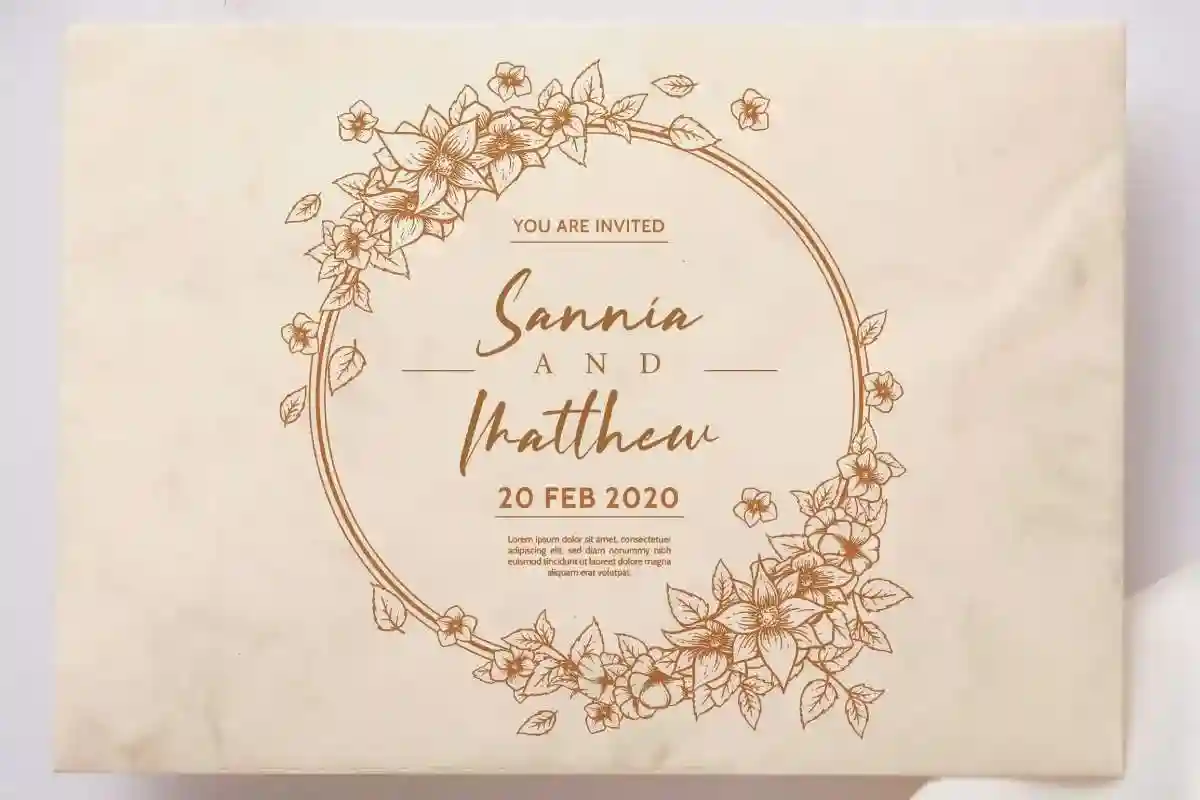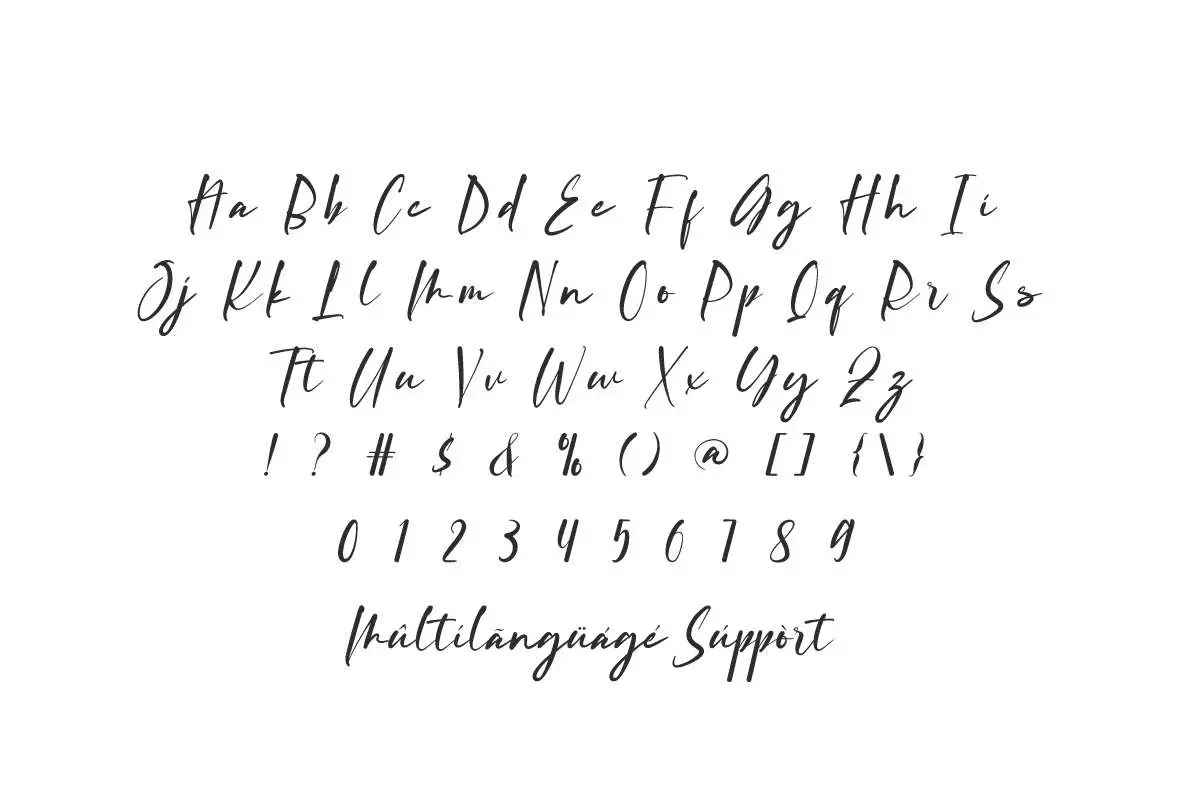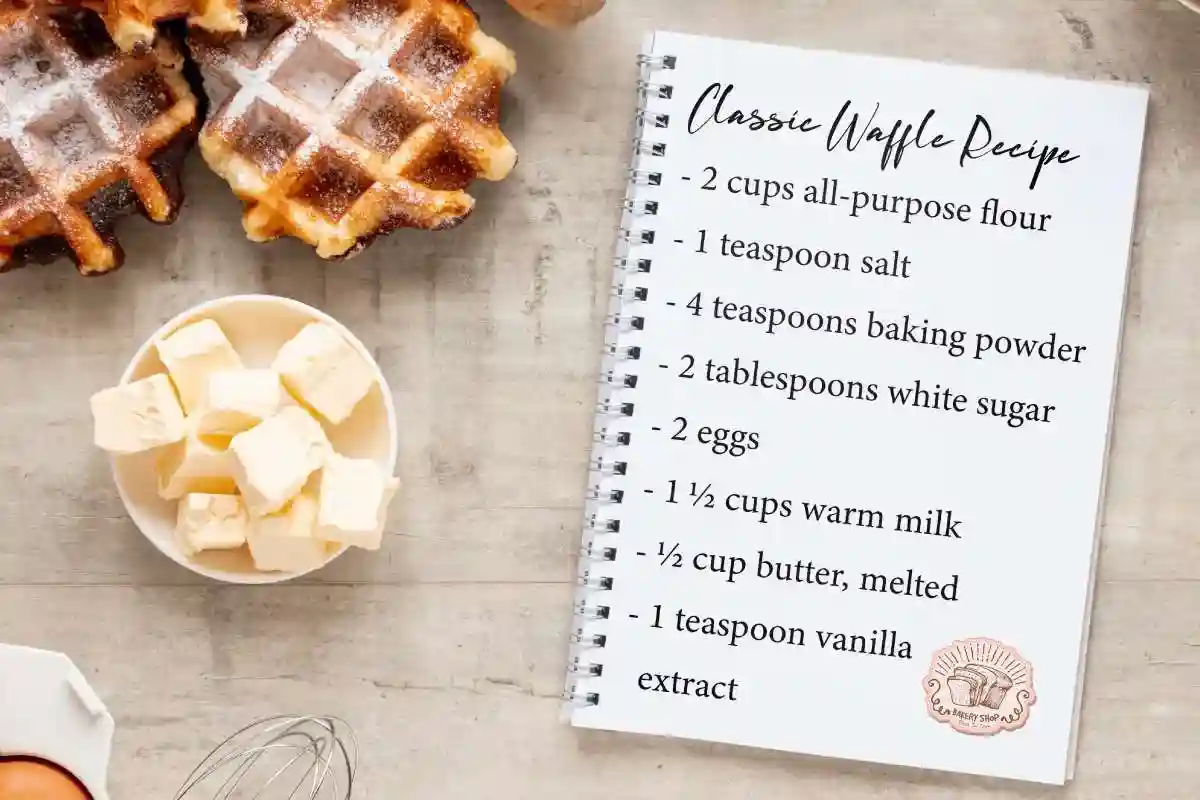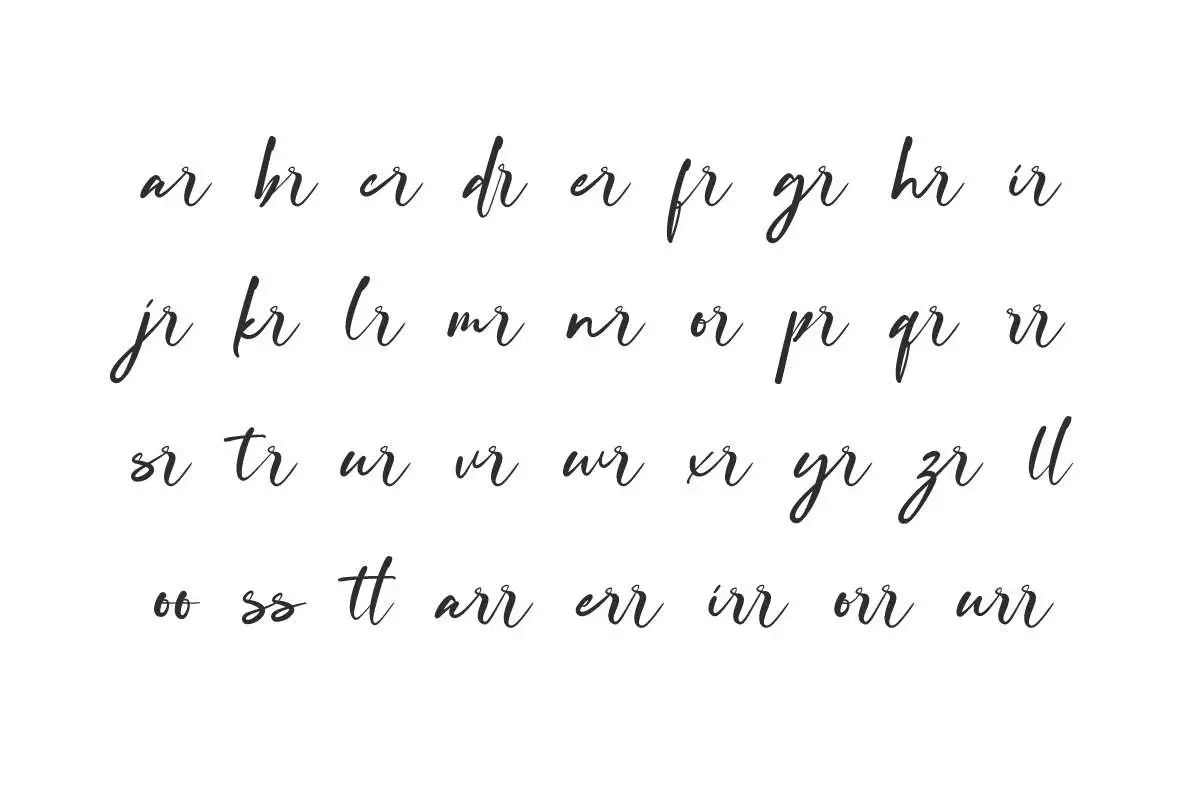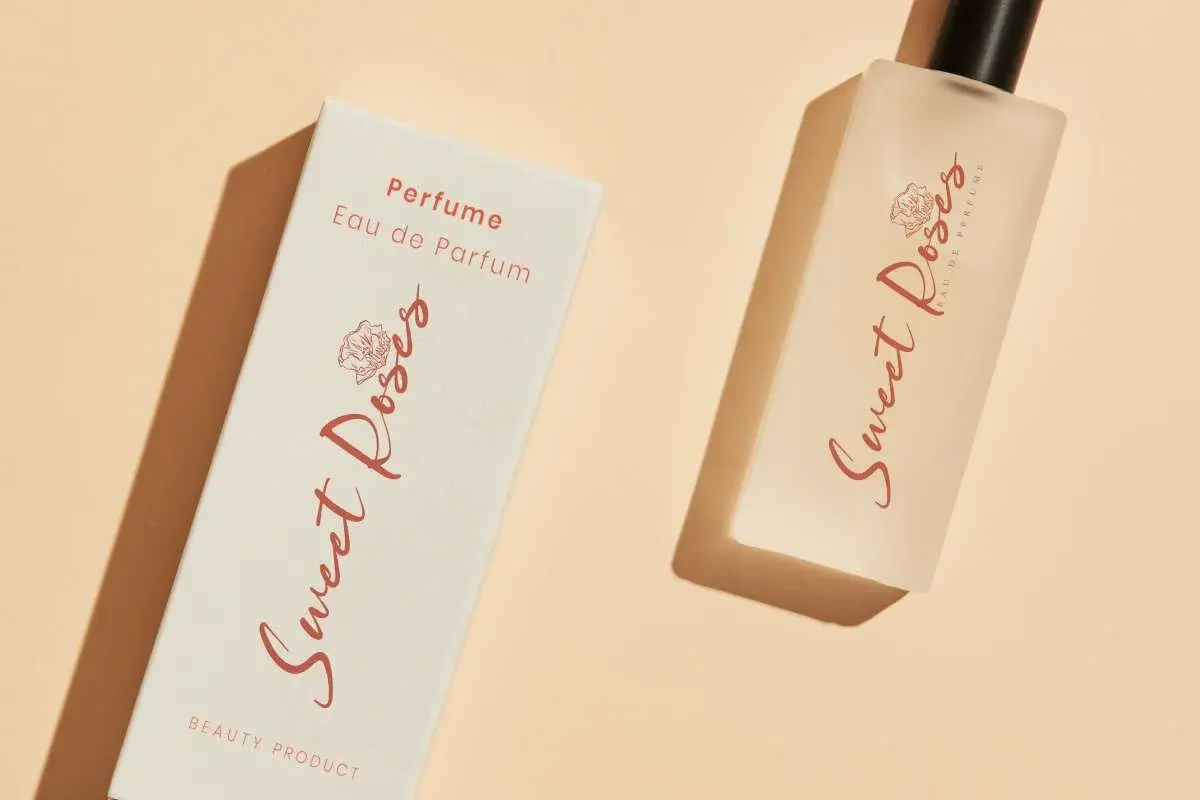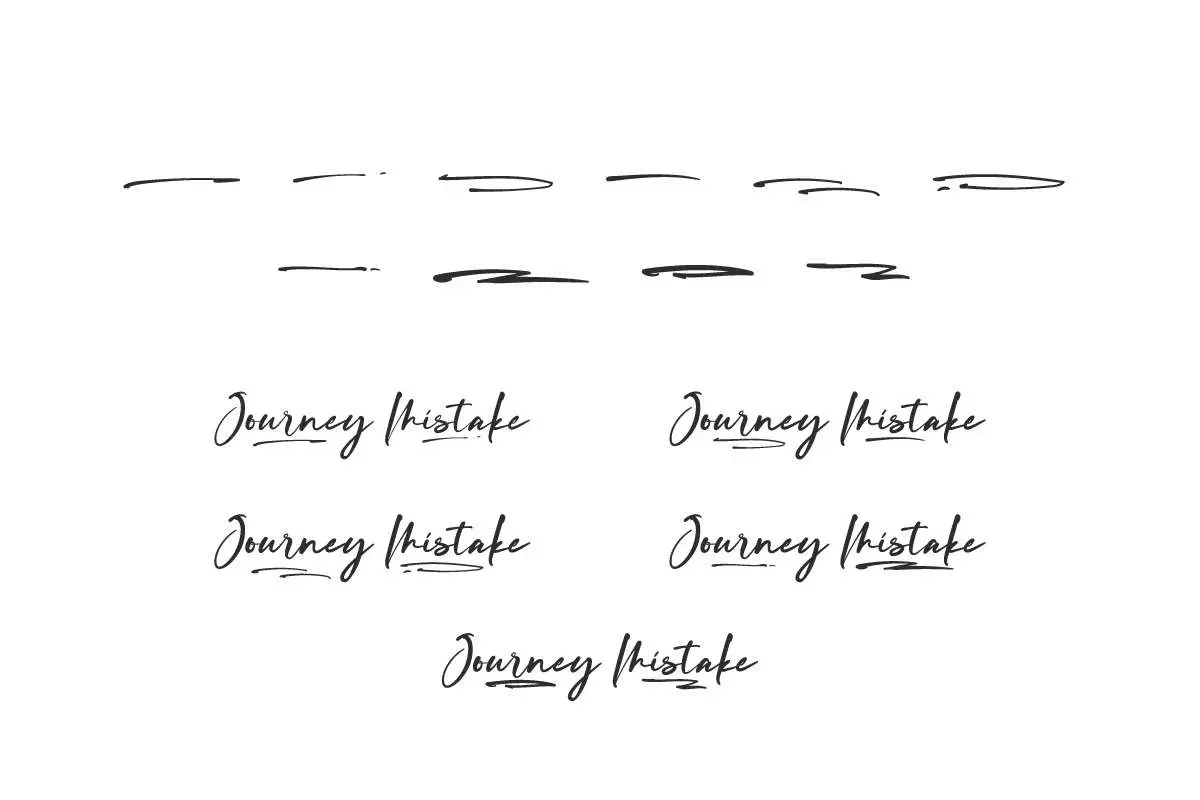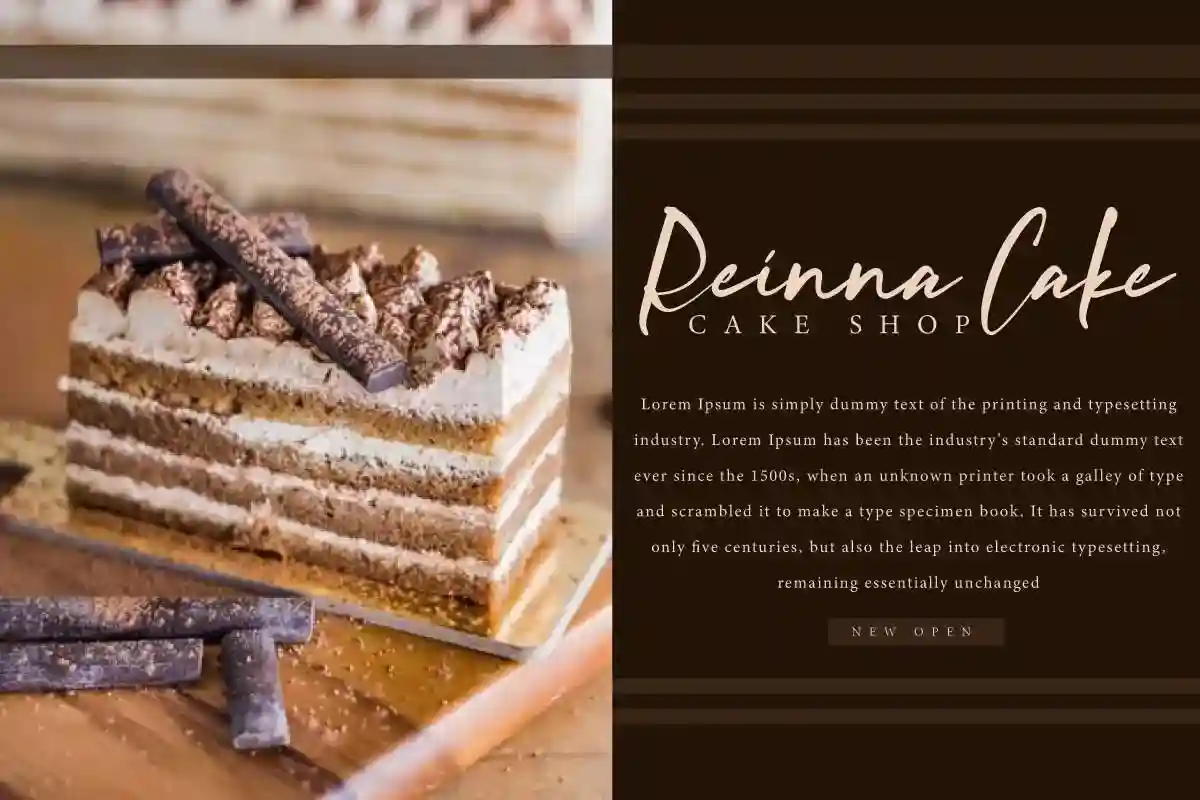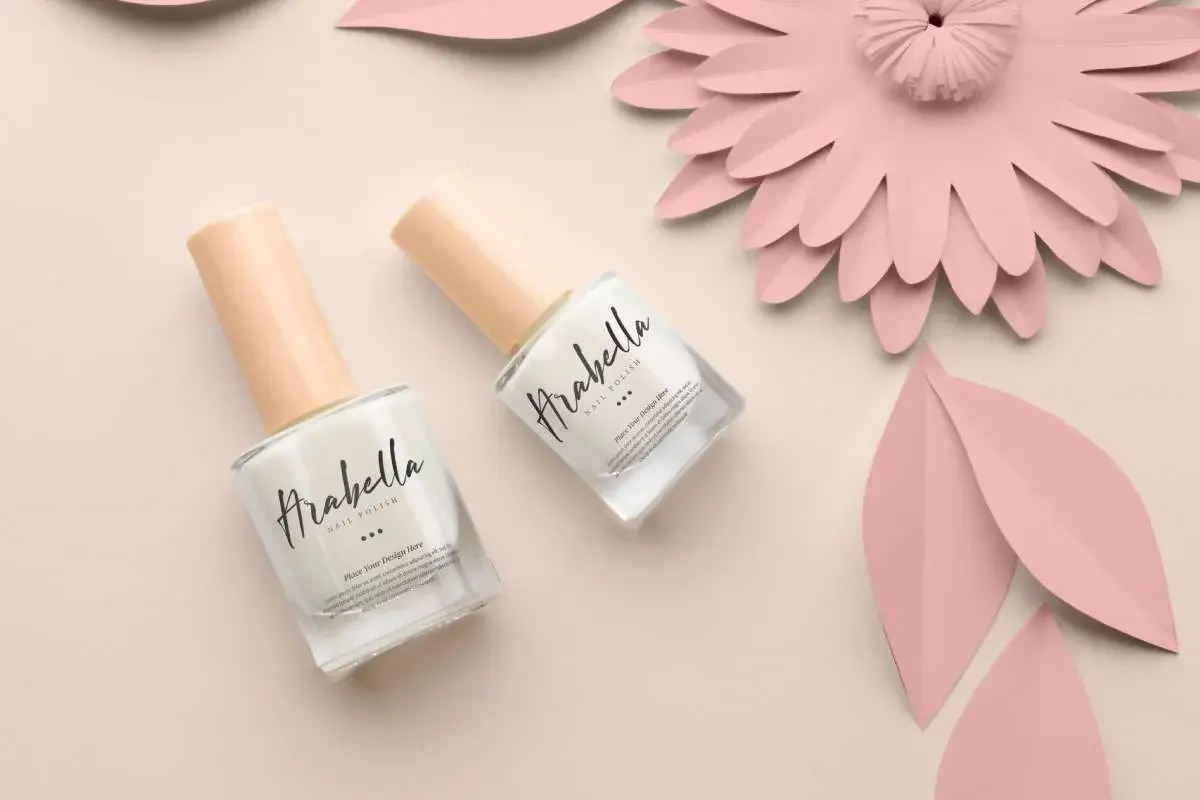
Journey Mistake Font is an elegant handwriting that focuses on highlighting the classy look. It would be perfect for perfume brand, label, sticker, wedding, etc.
Journey Mistake Font is a beautiful handwritten font with a classic ink look that’s awesome. It has the uniqueness of a brush that is irregular but still easy to read so it will add to the beauty of your design, such as brochure, invitation, label, product packaging, quote, stationery, sticker, title, watermark, website, and much more!
Journey Mistake Font comes with a full set of Uppercase and Lowercase Basic Characters, Number, Punctuation, Symbol. This font also features ligature and swoosh characters to add aesthetic value to the font. Use this for your business industry such as bakery, cooking class, furniture, jewelry, nail art salon, perfume brand, printing, publishing, restaurant, wedding, etc.